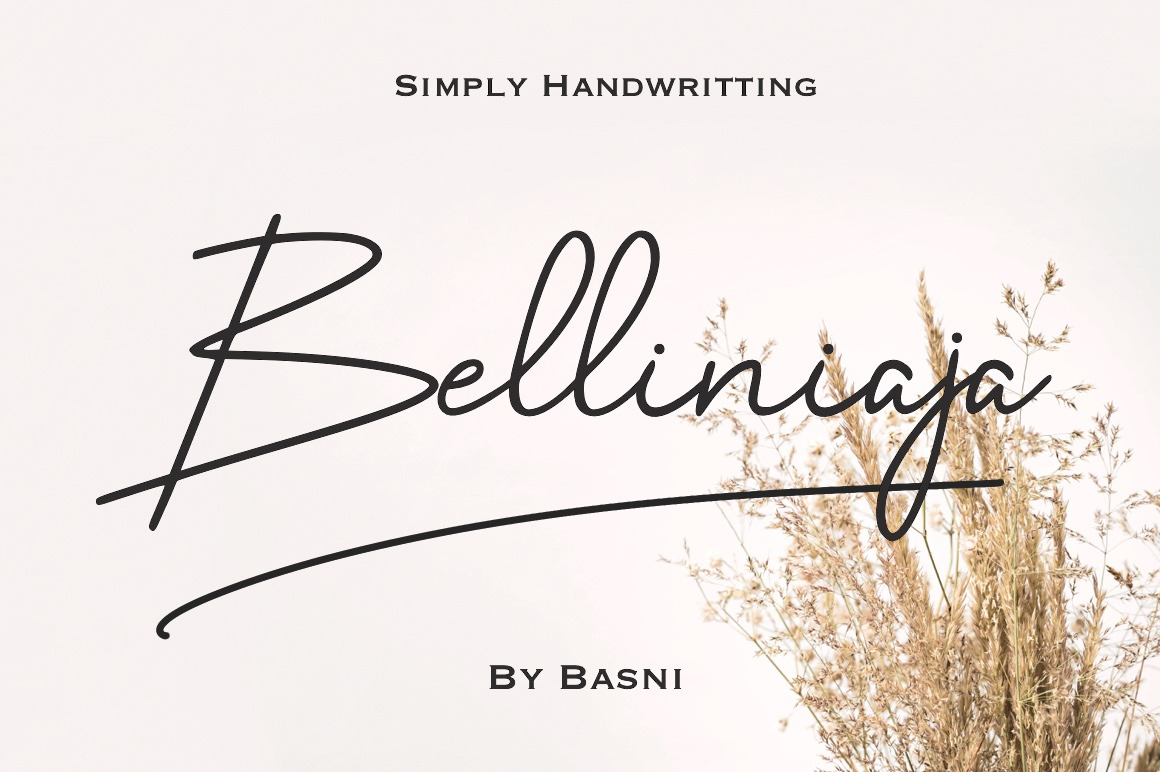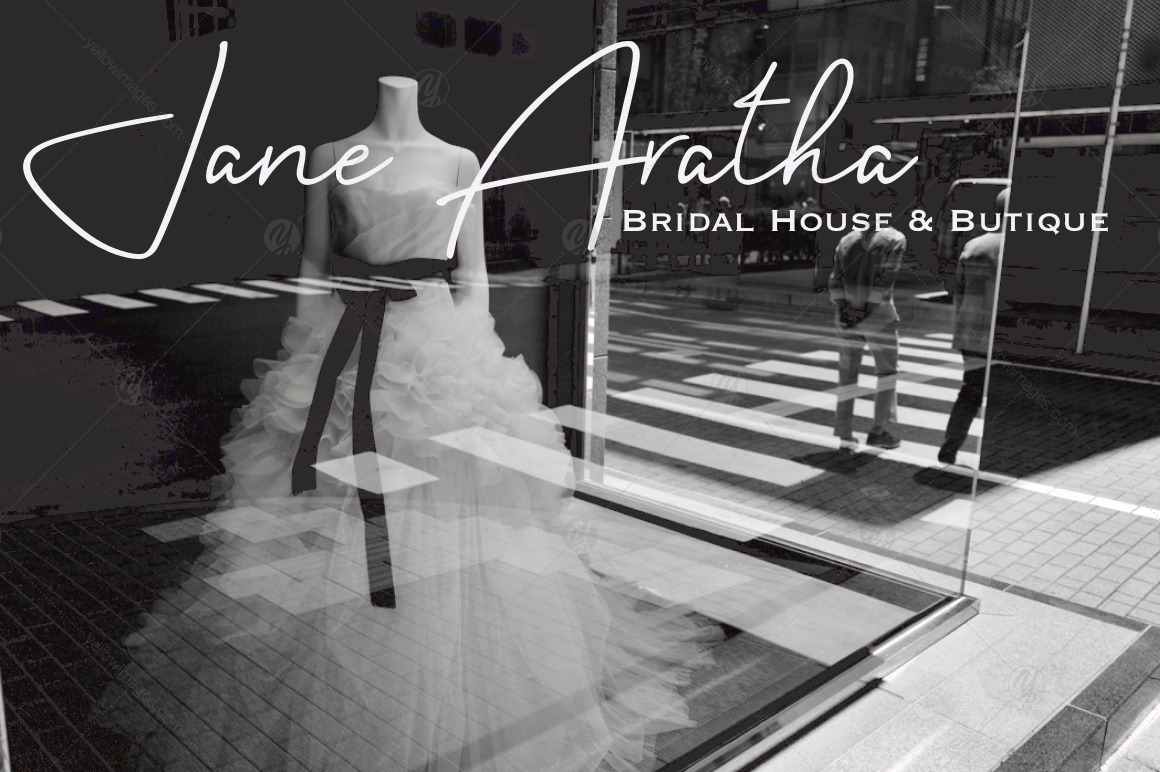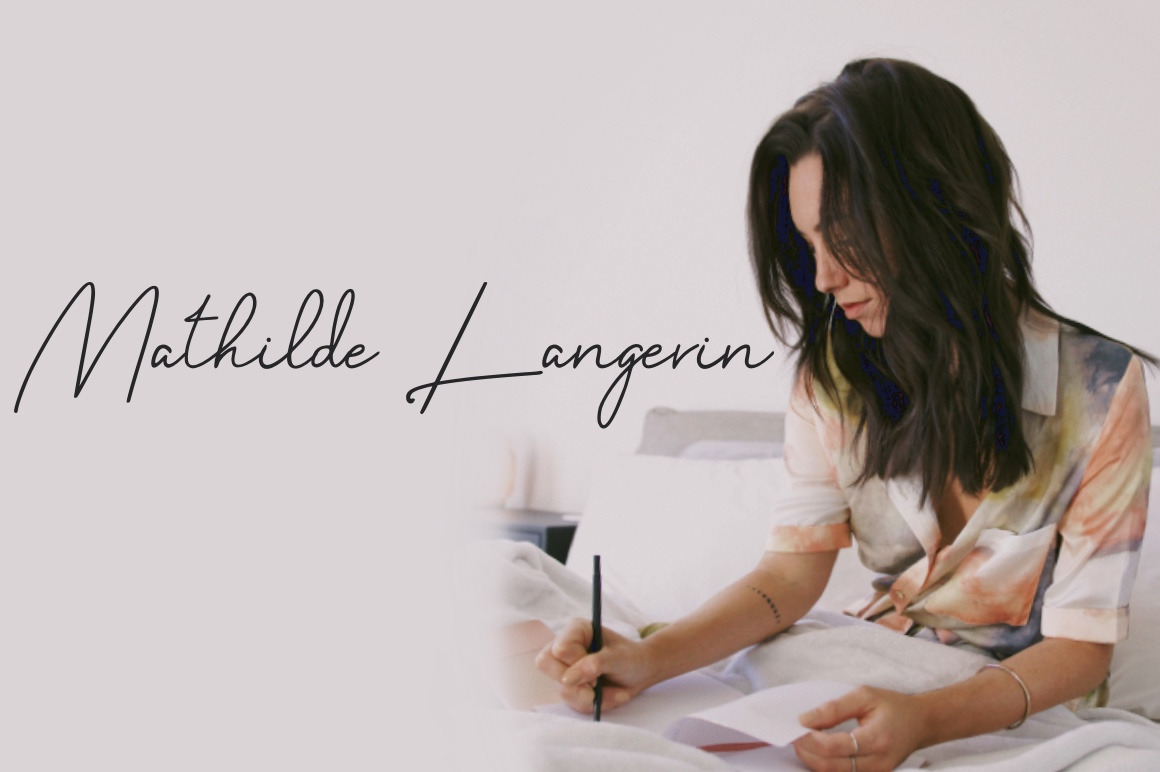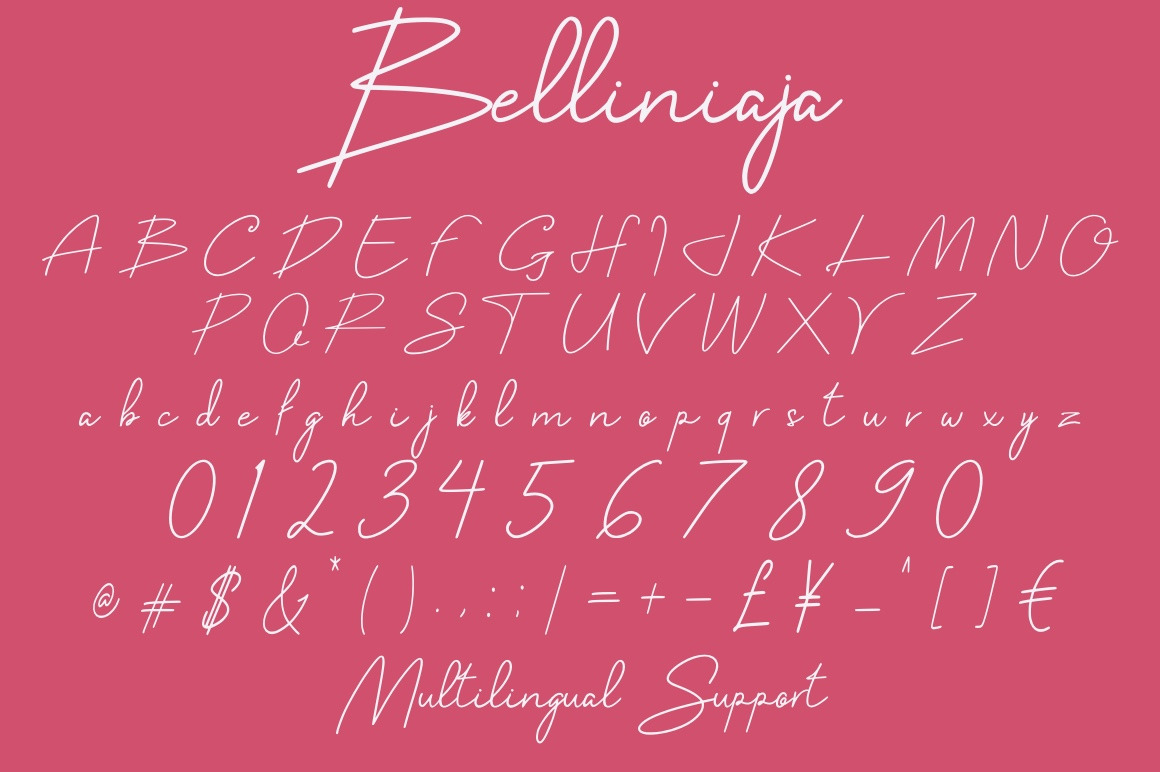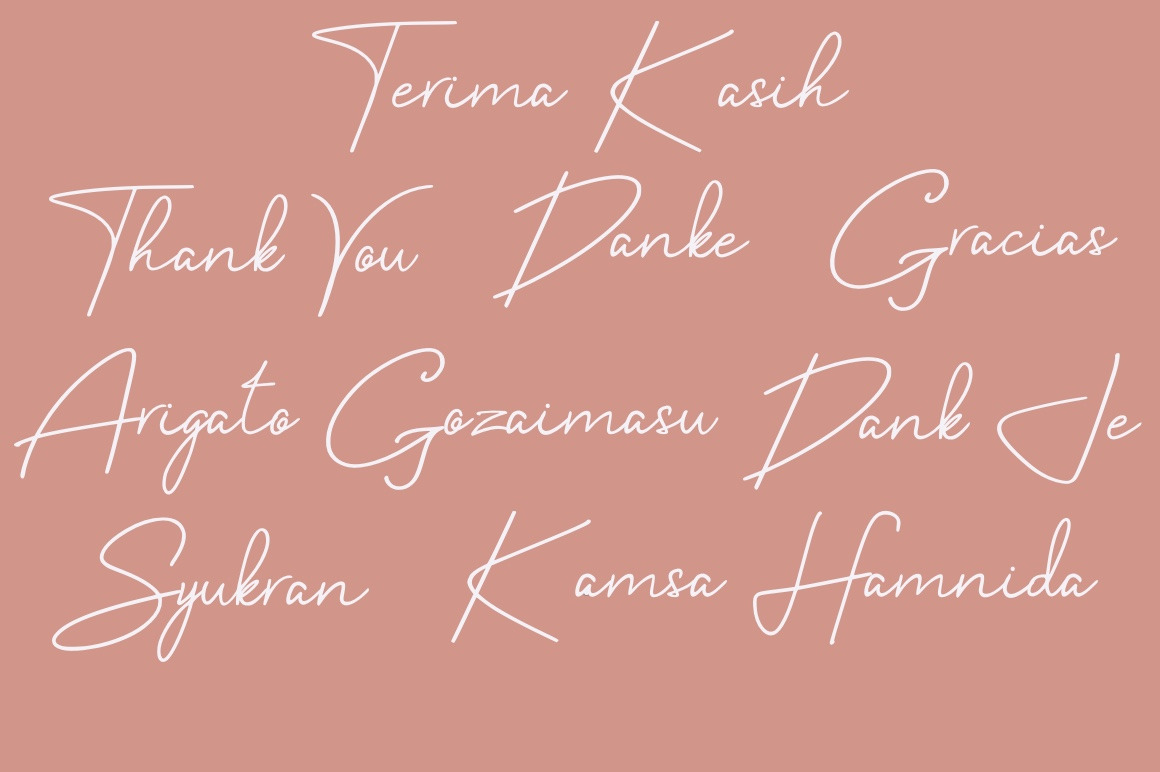
Belliniaja Font
Belliniaja is a delicate and elegant handwritten font.
Its distinct and well rounded letters make this font a masterpiece. Fall in love with its incredibly versatile style and use it to create spectacular designs!